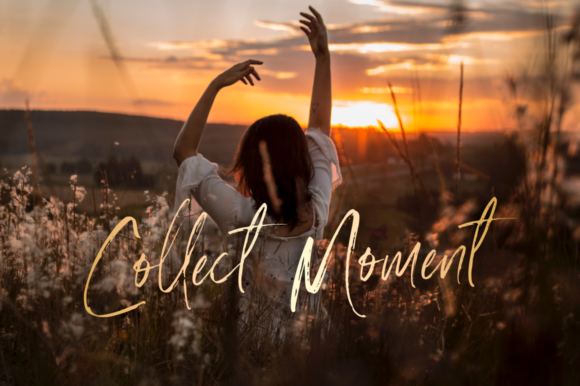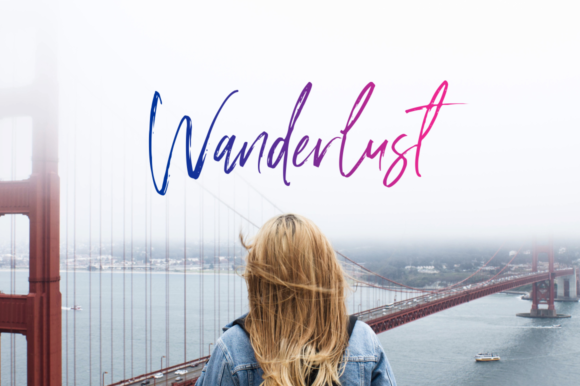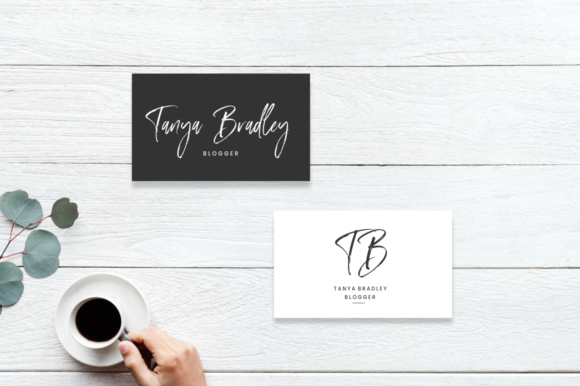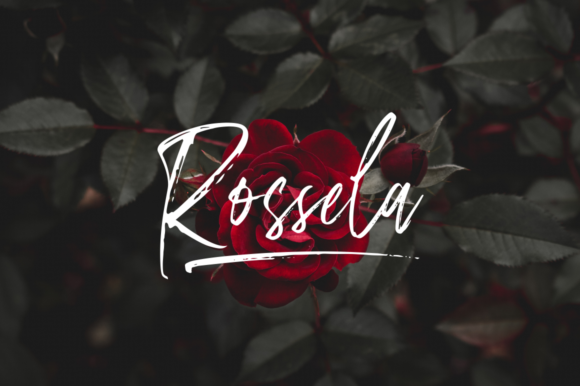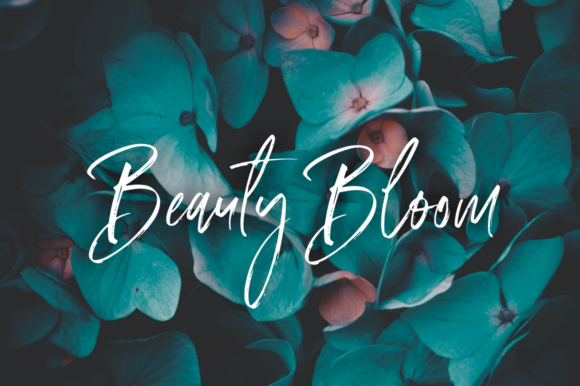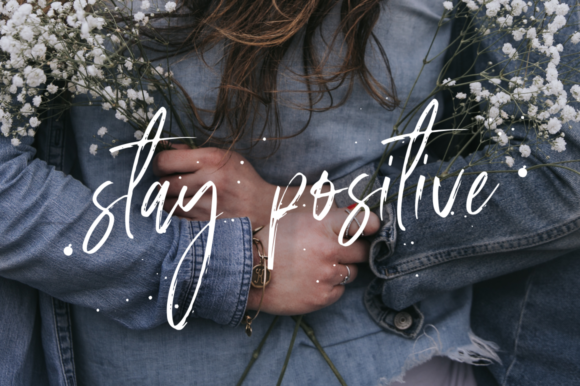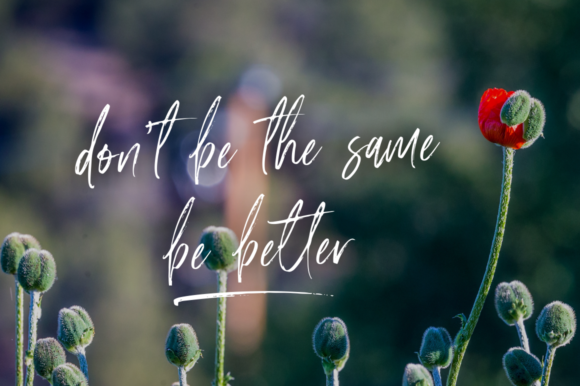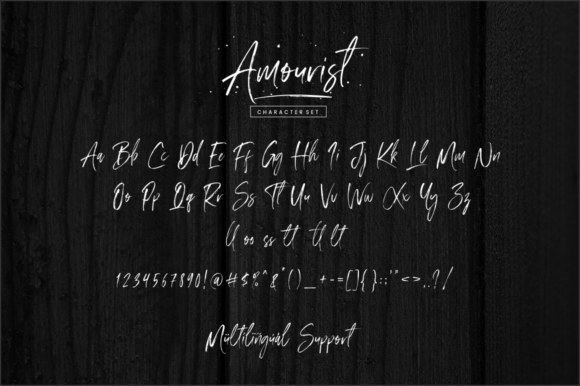
Amouris Font
About Amouris Font
Amourist is a beautiful and delicate handwritten font with an elegant and timeless touch. It will effortlessly elevate any design project.